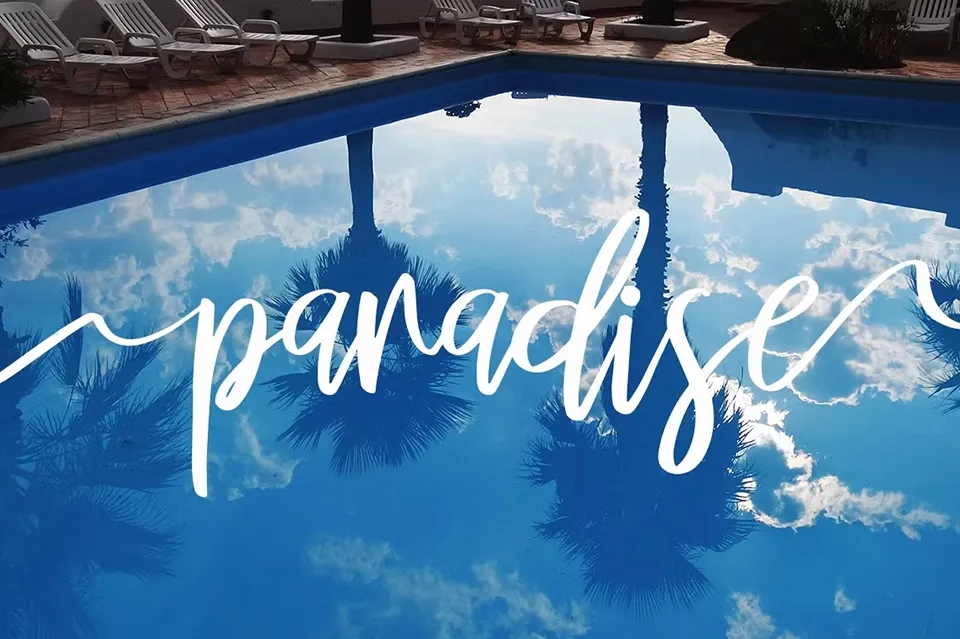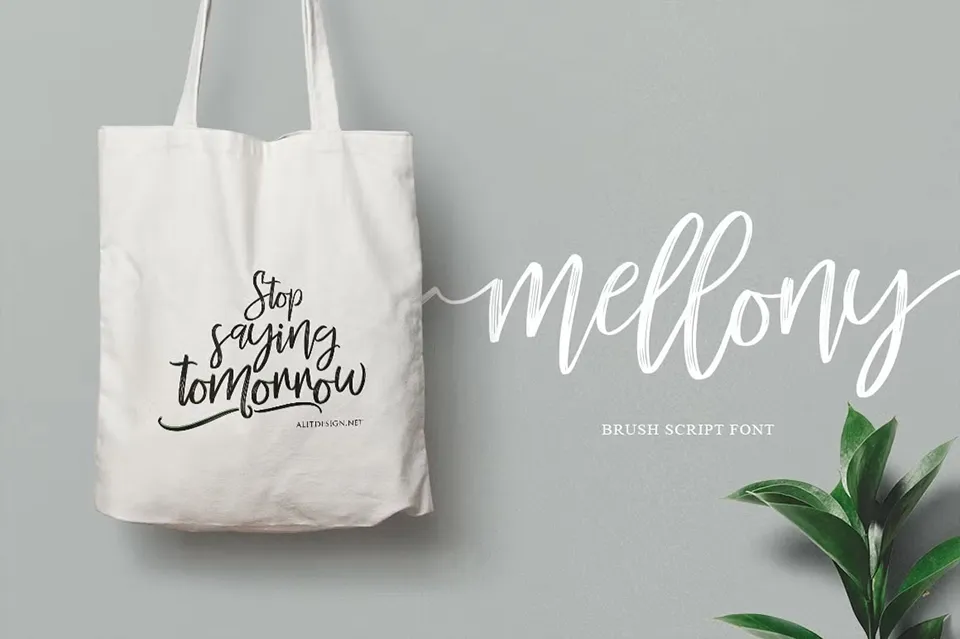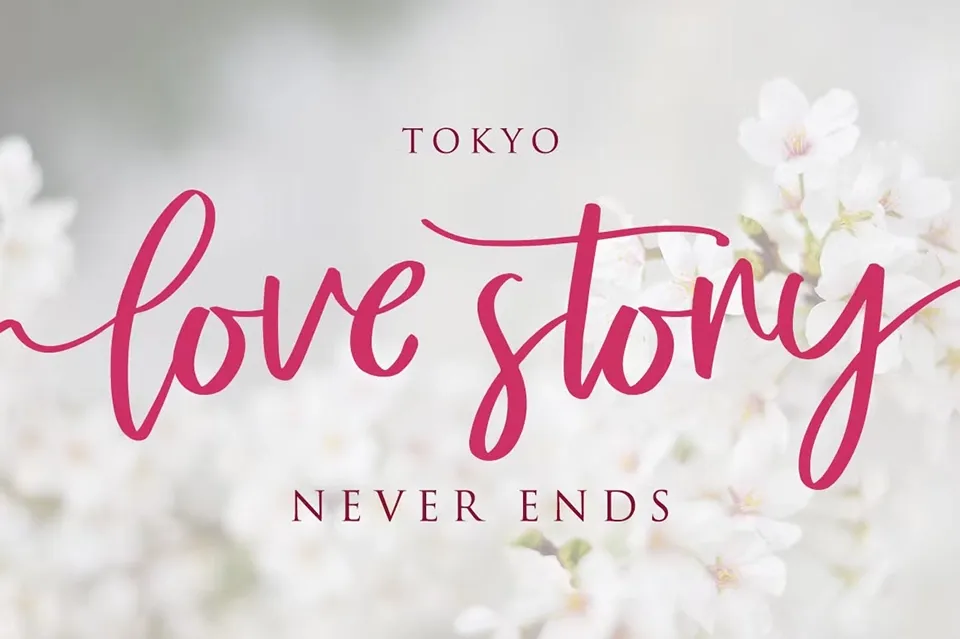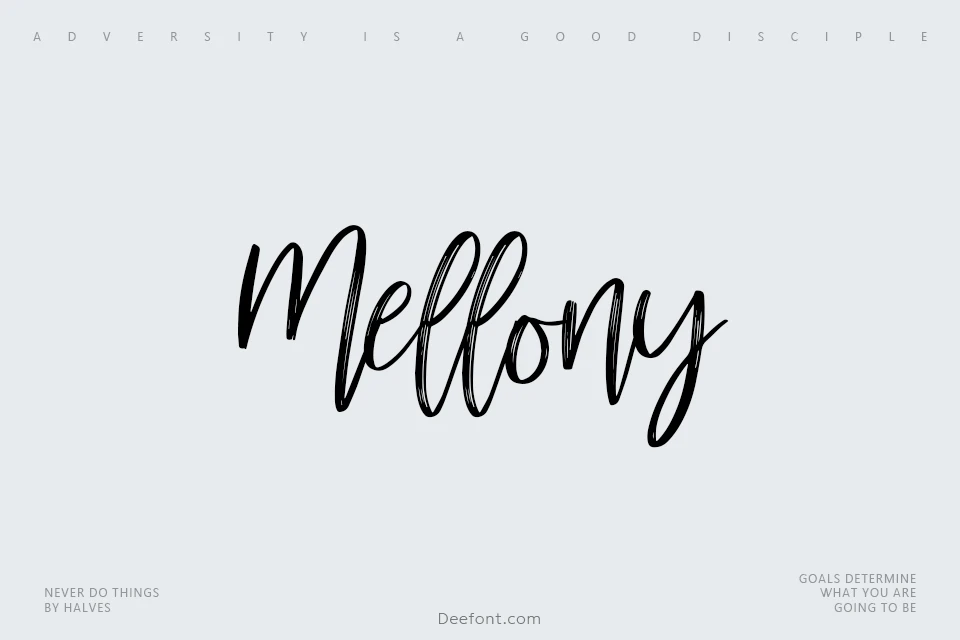
Mellony Brush Font
Mellony Brush Script Font is a modern calligraphy typeface designed with an elegant hand-lettered brush style. Perfect for projects that require a fun, girly, romantic, or elegant touch, this font is ideal for logotypes, website headers, wedding logos, quotes, t-shirt designs, and more. Mellony offers a unique blend of charm and versatility, featuring multiple alternative glyphs to enhance your creative work. Add a fresh, sophisticated look to your designs with this distinctive script font.